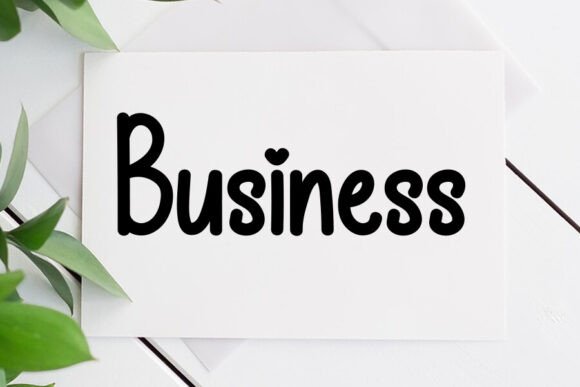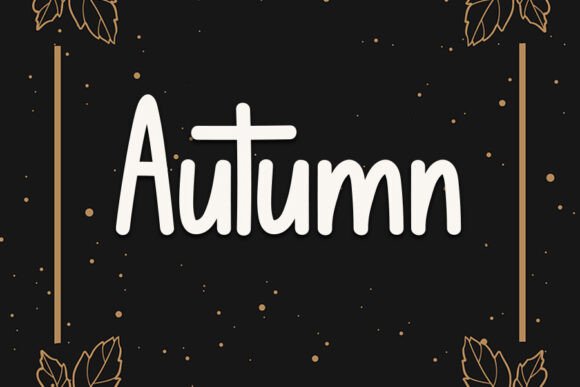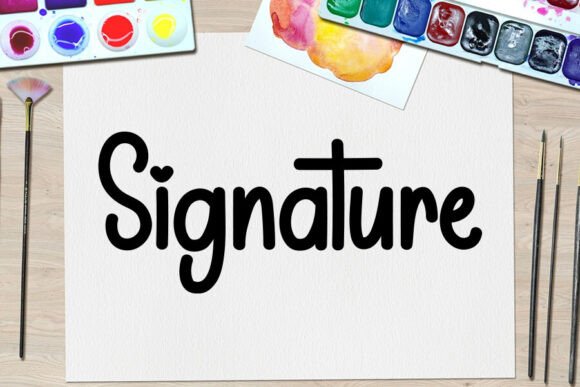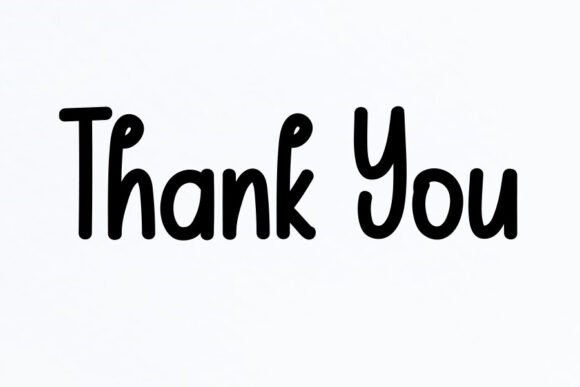
The Perfect Touch of Whimsy: Baby Sister Font
You know that moment when you’re brainstorming ideas for a new project and you’re stuck in a sea of sameness? The one where you’re desperate for something to break the mold and give your design that extra oomph? For me, that moment often comes when I’m working on a personal project, like a handmade birthday card or a DIY invitation. It’s the perfect time to get creative and experiment with new fonts.
Enter the Baby Sister Font, a charming handwritten font that’s as versatile as it is adorable. With its simple, natural feel, it’s perfect for adding a touch of whimsy to your next project. Whether you’re designing greeting cards, headlines, or just need a font to add some personality to your social media posts, Baby Sister Font is guaranteed to bring a smile to your face.
Baby Sister Font Key Features
- Font Family: Baby Sister is a sans-serif font family designed by Behance user.
- Character Set: The font family includes a wide range of characters, including uppercase and lowercase letters, numbers, punctuation marks, and special characters.
- Unique Characteristics: Baby Sister Font is known for its modern and playful design, with a unique combination of rounded and geometric shapes, making it suitable for various design projects, including logos, headings, and body text.
Designer Review: Baby Sister Font
First off, I have to say that I’m a big fan of the Baby Sister Font’s playful and feminine vibe. It’s perfect for designs that need a touch of sweetness and innocence ✨. The font’s cursive style and flowing lines make it great for titles, headings, and quotes. It’s also highly legible, even at smaller font sizes, which is a big plus.
The font comes in a range of weights and styles, from light to bold, which gives designers a lot of flexibility in terms of how they want to use it. Additionally, the font is highly customizable, with options for color, size, and spacing, making it easy to integrate into any design project.
While the Baby Sister Font is overall a great choice, there are a few limitations to be aware of ⚠️:
- The font may not be suitable for designs that require a more modern or edgy look. It’s best used for projects that need a soft, whimsical feel.
- The font’s cursive style can sometimes make it difficult to read at very small font sizes. Be mindful of this when using it for body text.
- The font’s customization options can be overwhelming, especially for designers who are new to typography. It may take some time to get used to all the different settings.
Overall, I think the Baby Sister Font is a great choice for designers who want to add a touch of sweetness and innocence to their projects. While it may have some limitations, it’s a versatile font that can be used in a variety of different contexts.
The “Baby Sister Font” is ideal for creating playful and whimsical designs, such as:
– Children’s book covers and illustrations.
– Party invitations and decorations.
– Social media graphics and promotions.
For optimal readability, we recommend using the Baby Sister Font at a minimum font size of 12 points. A line height of 1.2 to 1.5 times the font size is also recommended to ensure that the text is easy to read.